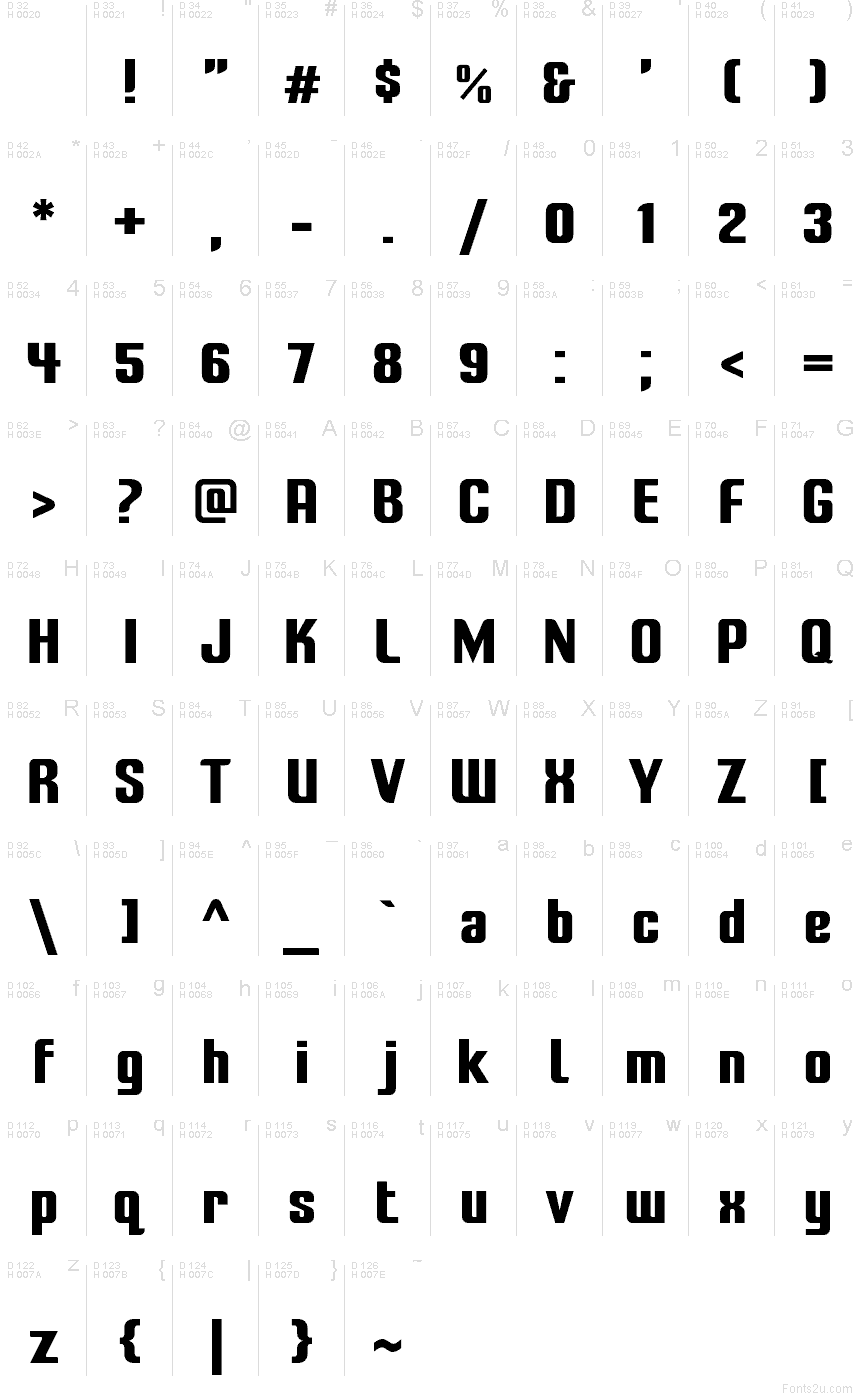
LT Energy font by LyonsType is a free sans serif typeface that channels the bold, fizzy attitude of early-2000s energy drink branding. Its chunky, squared forms and tight rhythm hit like a caffeine rush-solid enough for loud logos, yet smooth and rounded enough to feel friendly and modern. The variable version lets you fine‑tune weight and presence, so your wordmark can go from lean and sporty to thick and saturating without losing its signature structure.
Using LT Energy, you can power up sports drink labels, esports team identities, gym branding, festival posters, hydration campaigns, and bold web banners. This free font holds up especially well in all-caps headlines and punchy wordmarks, where its blocky silhouette reads fast and strong. For supporting text, pair it with a clean geometric sans in a lighter weight, and let LT Energy carry the main hit of flavor in your layouts.
Based from the Lucozade logotype from the early 2000s.